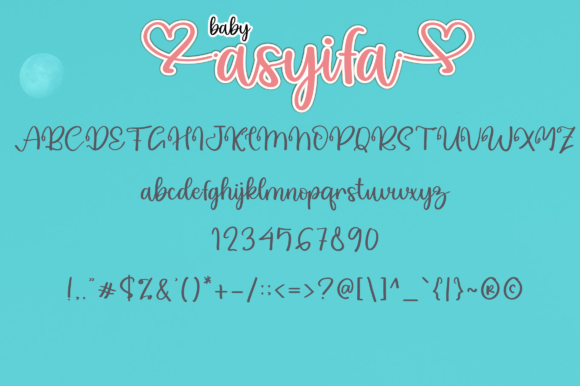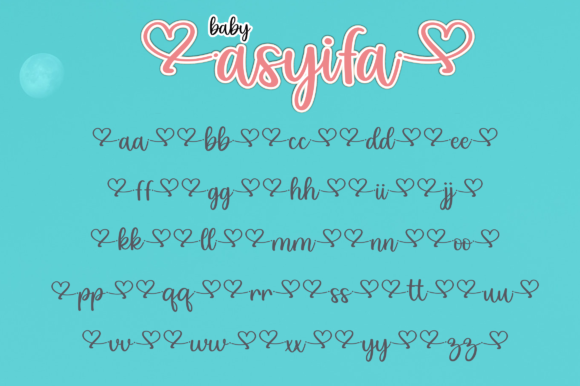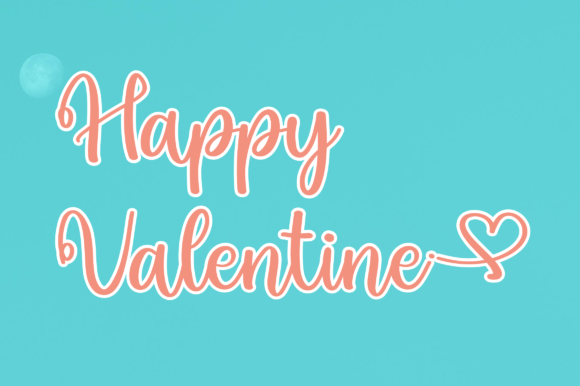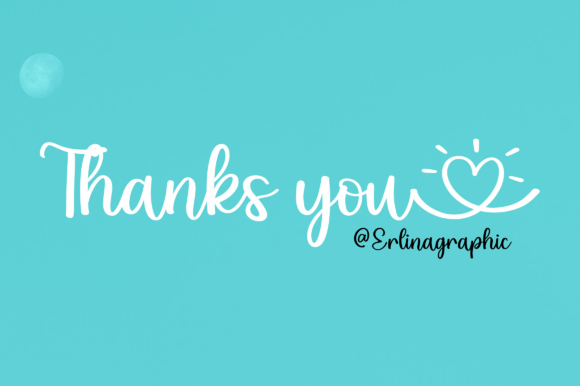
Baby Asyifa Font: Elevate Your Crafting Ideas with Elegance
In the world of crafting, design, and branding, the right font can make all the difference. If you’re looking for a font that exudes elegance, sophistication, and playfulness, look no further than the Baby Asyifa Font. This distinct, graceful script font is designed to take your crafting ideas to the next level, and in this article, we’ll explore what makes it so special.
What is Baby Asyifa Font?
Baby Asyifa is a beautiful, hand-crafted script font that boasts a unique and elegant style. Its flowing lines, delicate curves, and refined features make it perfect for a wide range of applications, from cards and invitations to branding, labels, and more. Whether you’re a designer, crafter, or DIY enthusiast, this font is sure to impress.
One of the standout features of the Baby Asyifa Font is its PUA (Private Use Area) encoding. This means that you can access all glyphs and swashes with ease, giving you unparalleled flexibility and creative control. With PUA encoding, you can effortlessly insert special characters, ligatures, and ornaments into your designs, taking them from ordinary to extraordinary.
Endless Crafting Possibilities
The Baby Asyifa Font is incredibly versatile, making it suitable for a wide range of crafting ideas. Here are just a few examples of how you can use this stunning font:
- Cards and Invitations: Create beautiful, one-of-a-kind greeting cards, invitations, and announcements that will leave a lasting impression.
- Branding and Packaging: Elevate your brand’s visual identity with custom labels, packaging, and marketing materials that showcase your unique style.
- Journaling and Scrapbooking: Add a touch of elegance to your journal pages, scrapbook layouts, and photo albums with this gorgeous script font.
- DIY Projects: Use Baby Asyifa to create stunning DIY projects, such as handmade signs, wall art, and home decor items.
Why Choose Baby Asyifa Font?
With so many fonts available, why choose Baby Asyifa? Here are just a few reasons why this font stands out:
- Unique and Elegant: Baby Asyifa boasts a distinct, refined style that will set your designs apart from the crowd.
- Highly Versatile: This font is suitable for a wide range of applications, from crafting and design to branding and marketing.
- Easy to Use: With PUA encoding, accessing glyphs and swashes is a breeze, making it easy to get creative and experiment with different designs.
- PUA Encoded: Enjoy effortless access to all glyphs and swashes, giving you maximum creative control.
| Font Name | Baby Asyifa Font |
| Author | Erlina Graphic |
- Distinct, graceful script font
- Highly versatile for various crafting ideas
- Suitable for cards, branding, labels, and more